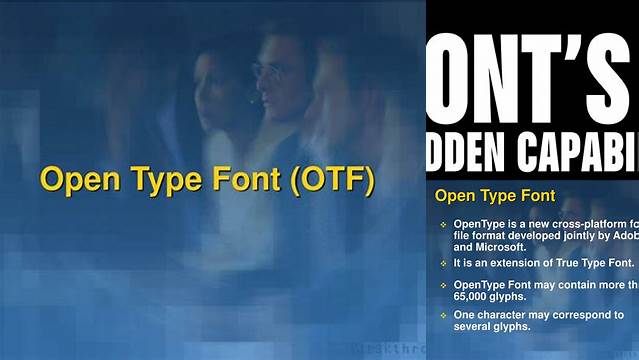
OpenType Fonts (OTF): Your Ultimate Guide
Unveiling the World of OpenType Fonts (OTF): A Comprehensive Guide
Hey guys, ever wondered about the magic behind the beautiful fonts you see everywhere? Well, a huge part of that magic comes from OpenType fonts, specifically the OTF format. Today, we're going to dive deep into the world of OTF fonts, exploring what they are, how they work, and why they're so awesome. Get ready to become a font aficionado!
What Exactly Are OpenType Fonts (OTF)?
So, what's the deal with OpenType fonts, and why are they so important? Simply put, OpenType fonts (OTF) are a type of digital font technology. They're designed to be super versatile and to work across a wide range of platforms and software. Think of them as the superheroes of the font world. They're developed jointly by Adobe and Microsoft. One of the coolest things about OTF fonts is that they can include a massive number of characters. This is way beyond the basic alphabet and numbers. OTF fonts can have support for different languages, special characters (like the copyright symbol © or the registered trademark ®), and even decorative glyphs. This allows for far more complex and visually interesting designs.
Back in the day, we had fonts like Type 1 fonts. However, they had limitations. For example, they could have a hard time dealing with complex scripts or a wide variety of characters. Then came OpenType, which solved a lot of these problems. OTF fonts use a new, more advanced format that can handle almost any character set. This means whether you're writing in English, Chinese, Arabic, or any other language, chances are there's an OTF font that can do the job. Also, the format uses either TrueType or CFF (Compact Font Format) outlines. CFF is especially good at producing high-quality output, especially at smaller sizes. This is why OTF fonts are a go-to choice for designers, writers, and anyone who cares about how their text looks.
Also, OTF fonts often come packed with advanced typographic features. What do I mean by that? Well, they can support things like ligatures (where two or more letters are combined into a single character for a smoother look), small caps, old-style figures (numbers that blend better with lowercase letters), and a bunch of other cool stuff that can give your text a professional and polished look. So, to sum it up, OpenType fonts are versatile, support a wide range of characters, and offer advanced typographic features, making them a top choice for anyone who wants great-looking text.
The Advantages of Choosing OTF Fonts
Alright, let's dig into the benefits of using OpenType fonts. Why should you choose OTF over other font formats? Well, there are a bunch of compelling reasons, starting with the sheer versatility of the format. OTF fonts work seamlessly across both Windows and macOS, which is a massive advantage if you're working on projects that need to be shared with others. No more font compatibility headaches! You know, the ones where your carefully chosen font gets swapped out for something totally different on someone else's computer. OTF fonts help avoid that, ensuring your text looks exactly as you intended, no matter where it's viewed.
Beyond cross-platform compatibility, OTF fonts are known for their superior quality. As mentioned earlier, many OTF fonts use CFF outlines, which are designed to provide high-quality rendering, especially at smaller point sizes. This means that your text will look crisp and clear, whether you're printing it out or displaying it on a high-resolution screen. No more blurry or jagged-looking text! This is a huge deal, especially for designers who want their work to look its best. Another big advantage of OTF fonts is their support for a vast array of characters. This includes not only the standard Latin alphabet but also characters from many different languages, as well as special symbols and glyphs. This makes OTF fonts a great choice if you're working on multilingual projects or need to include special characters in your designs. Also, OpenType fonts often come packed with advanced typographic features, as we discussed earlier.
These features can dramatically improve the look and readability of your text. Ligatures, for example, can make your text flow more smoothly. Small caps can add a touch of elegance. Old-style figures can blend in more naturally with lowercase letters. These little details make a big difference in the overall aesthetic of your work. Choosing OTF fonts gives you access to these features, which can help you create professional-looking documents and designs. From a practical standpoint, OTF fonts are widely supported by design software. You'll find that most popular design programs, like Adobe Photoshop, Illustrator, and InDesign, fully support OTF fonts and give you easy access to all their features. This means that you can take full advantage of the capabilities of your fonts without any compatibility issues. Plus, there are tons of OTF fonts available, both free and paid, so you're sure to find something that fits your needs and style.
OTF vs. TTF: What's the Difference?
Okay, let's talk about the difference between OTF and TTF fonts. You've probably come across both, and it's good to know what sets them apart. Both are font formats, but they have some key distinctions. TTF stands for TrueType Font. It was developed by Apple and later adopted by Microsoft. TTF fonts were designed to be simpler and easier to create than the older PostScript fonts. The primary distinction between OTF and TTF lies in how they store character outlines. OTF fonts can use either TrueType or CFF outlines. CFF outlines are particularly good at producing high-quality output, especially at smaller sizes. This is one of the main reasons why OTF fonts are often preferred by designers. TTF fonts, on the other hand, primarily use TrueType outlines. While TrueType outlines are perfectly fine, they may not always render as smoothly or cleanly as CFF outlines, particularly in specific cases.
Another key difference is in the features they support. OTF fonts generally have more advanced typographic features than TTF fonts. As we have discussed, OTF fonts can support features like ligatures, small caps, old-style figures, and other advanced typographic options. These features give you more control over the appearance of your text and can help you create more professional-looking designs. TTF fonts may support some of these features, but the range is usually more limited. Now, compatibility is another factor to consider. Both OTF and TTF fonts are widely supported across Windows and macOS. In terms of availability, both OTF and TTF fonts are readily available. You can find tons of free and paid fonts in both formats. However, because of the advanced features and potential for higher-quality rendering, OTF fonts are often preferred by designers and typographers. So, when choosing between the two, consider your specific needs. If you need advanced typographic features or want the best possible quality, especially at smaller sizes, OTF is usually the better choice. If you need a simple font for basic text, a TTF font may be perfectly fine. But in most cases, opting for OTF will give you more flexibility and control over the look of your text.
Where to Find and Install OTF Fonts
So, you're ready to get your hands on some OTF fonts? Awesome! Finding and installing them is super easy. Let's start with finding fonts. There are tons of places to find OTF fonts, both free and paid. Here are some popular resources: